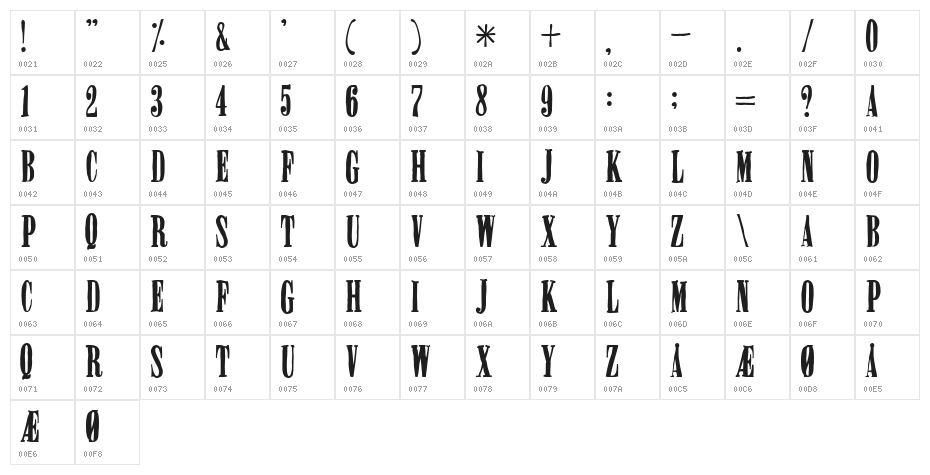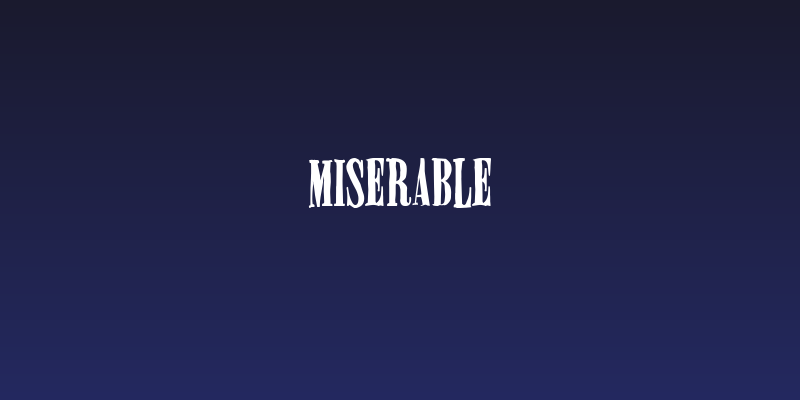
Miserable Font
Miserable Description
This font features a bold and dramatic style with high contrast between thick and thin strokes. The characters are tall and narrow, giving a condensed appearance. The serifs are pronounced and add to the decorative nature of the typeface. The overall design is reminiscent of vintage poster fonts, making it ideal for eye-catching headlines and display purposes. The uppercase and lowercase letters maintain a consistent style, while the numerals and special characters complement the overall aesthetic.
| Width | Condensed |
| Overall Style | Vintage |
| Proposed Projects | Ideal for vintage-themed posters, dramatic headlines, branding, and logo design. |